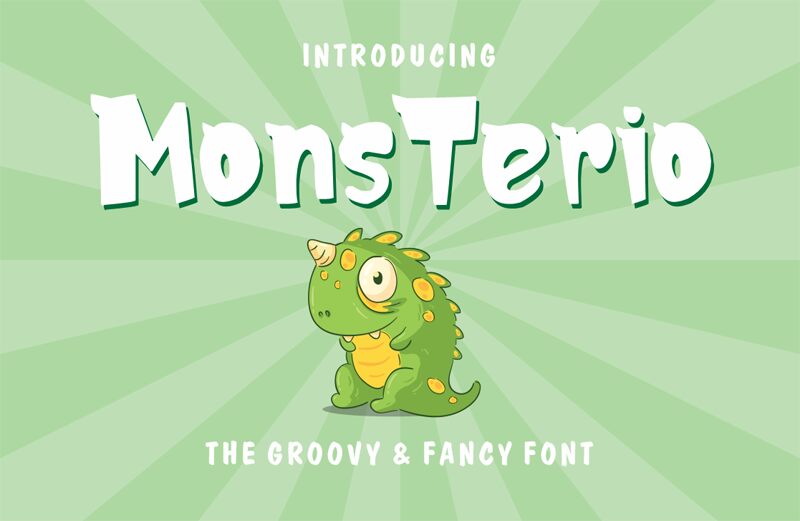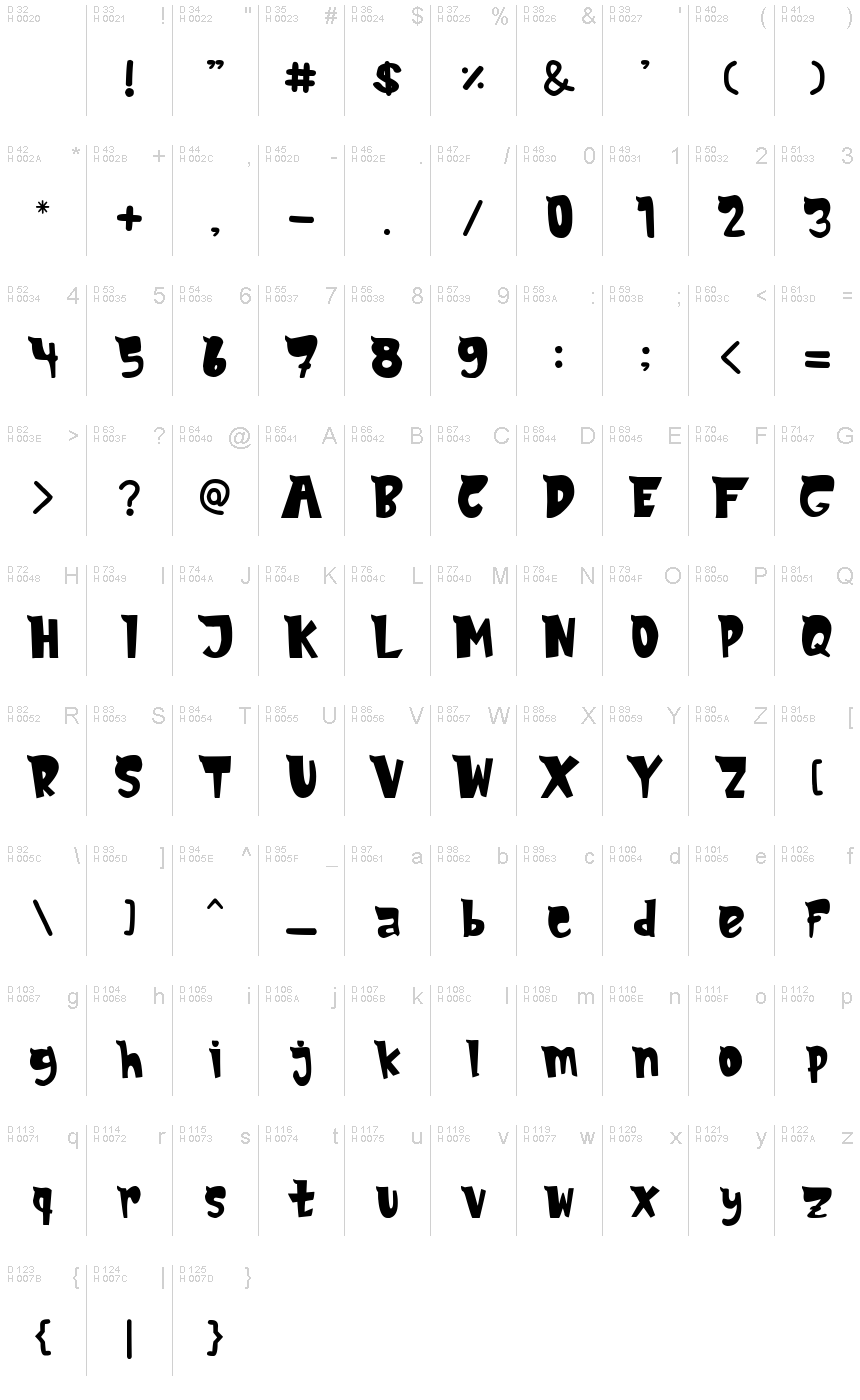
MonsTerio
Monsterio is a bold, playful display font that exudes a distinct cartoon-inspired aesthetic. Designed by Fachranheit, this typeface boasts striking features that immediately captivate the eye. With its chunky, exaggerated letterforms and a touch of whimsy, Monsterio is perfectly suited for attention-grabbing headlines, energetic branding, and imaginative children's content.
The font's bold character and vibrant personality make it an excellent choice for infusing a sense of fun and personality into a wide range of design projects, from book covers and posters to packaging and digital interfaces.